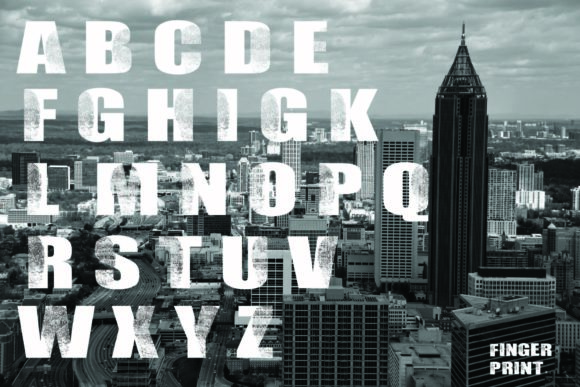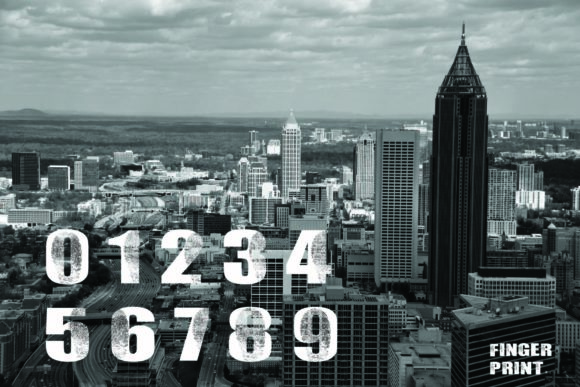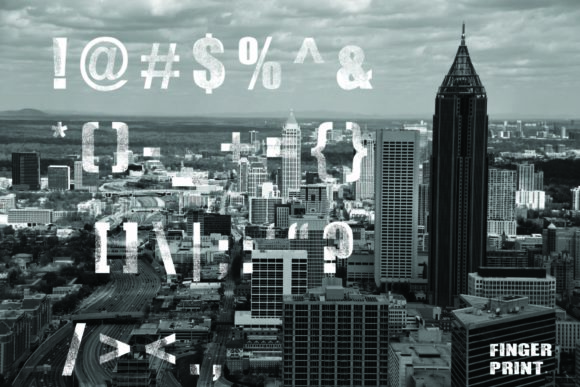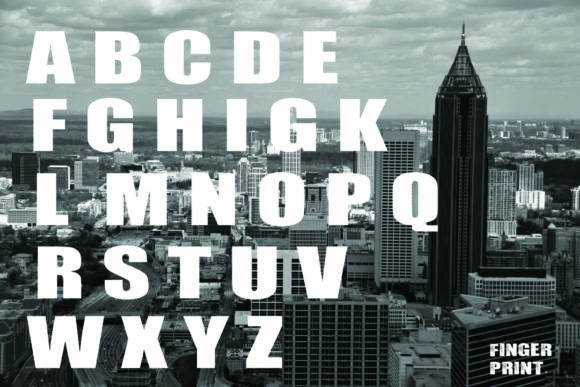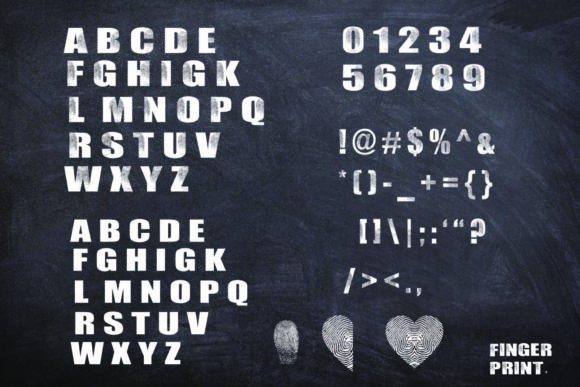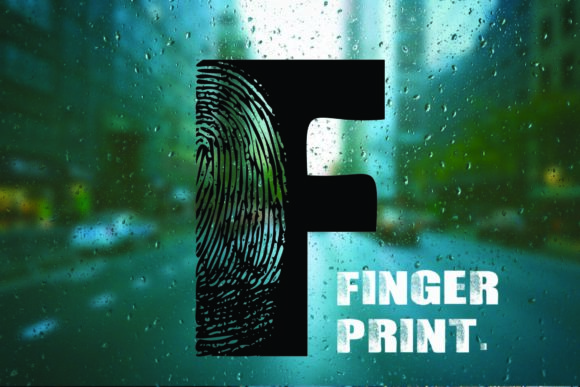
Finger Print Font: A Handcrafted Bold Display Font for Creative Projects
In the world of typography, fonts play a crucial role in conveying the tone and personality of a brand or design. For designers and crafters looking for a unique and versatile font, Finger Print Font is an excellent choice. This bold display font is carefully handcrafted to become a true favorite among designers, and its casual charm makes it appear wonderfully down-to-earth, readable, and incredibly versatile.
What Makes Finger Print Font Stand Out?
Finger Print Font is designed to make a statement. Its bold and eye-catching style makes it perfect for use on busy backgrounds or as a standalone headline on a book cover. The font’s casual charm gives it a friendly and approachable feel, making it ideal for designs that require a personal touch. Whether you’re working on a branding project, a book cover, or a marketing material, Finger Print Font is sure to grab attention and leave a lasting impression.
Key Features of Finger Print Font
- Handcrafted with love: Finger Print Font is carefully crafted to ensure that every letter and curve is unique and of high quality.
- Bold and eye-catching: The font’s bold style makes it perfect for use on busy backgrounds or as a standalone headline.
- Casual charm: Finger Print Font has a friendly and approachable feel, making it ideal for designs that require a personal touch.
- Highly versatile: The font is suitable for a wide range of design projects, from branding and book covers to marketing materials and more.
- Readable: Despite its bold style, Finger Print Font is highly readable, making it perfect for use in a variety of contexts.
How to Use Finger Print Font in Your Designs
Finger Print Font is a versatile font that can be used in a variety of design projects. Here are a few ideas to get you started:
- Branding: Use Finger Print Font as a logo or title font to give your brand a bold and eye-catching identity.
- Book covers: The font’s bold style and casual charm make it perfect for use on book covers, especially for fiction or self-help books.
- Marketing materials: Finger Print Font is ideal for use on marketing materials such as brochures, flyers, and posters.
- Social media graphics: Use the font to create eye-catching social media graphics that grab attention and leave a lasting impression.
Tips for Getting the Most Out of Finger Print Font
To get the most out of Finger Print Font, here are a few tips to keep in mind:
- Use it sparingly: While Finger Print Font is bold and eye-catching, it’s best to use it sparingly to avoid overwhelming the design.
- Experiment with colors: The font looks great in a variety of colors, so don’t be afraid to experiment and find the perfect color for your design.
- Pair it with other fonts: Finger Print Font pairs well with other fonts, so try pairing it with a clean and simple font to create a striking contrast.
Finger Print Font is a handcrafted bold display font that is sure to become a true favorite among designers and crafters. Its casual charm, bold style, and high versatility make it perfect for use in a wide range of design projects. Whether you’re working on a branding project, a book cover, or a marketing material, Finger Print Font is an excellent choice. So why not give it a try and see the impact it can have on your designs?